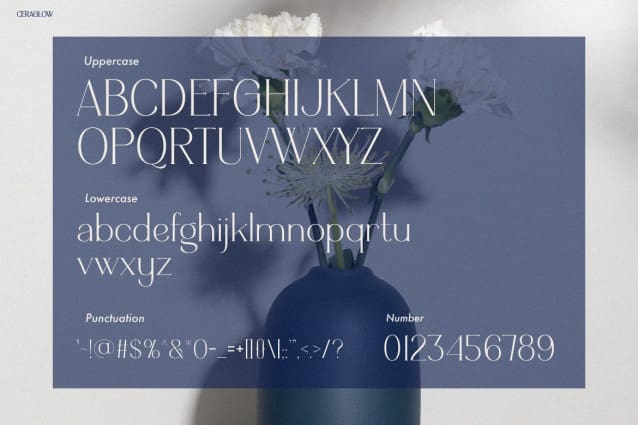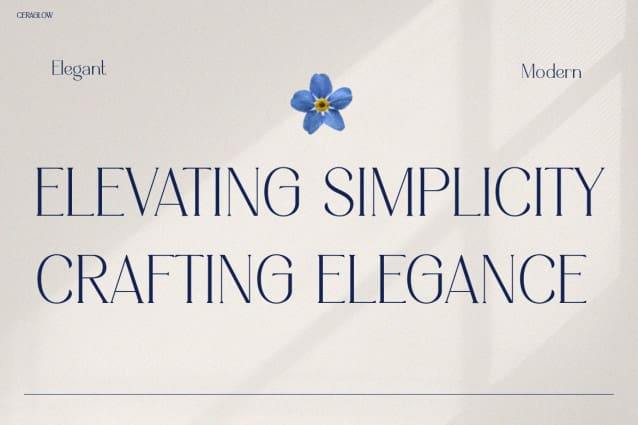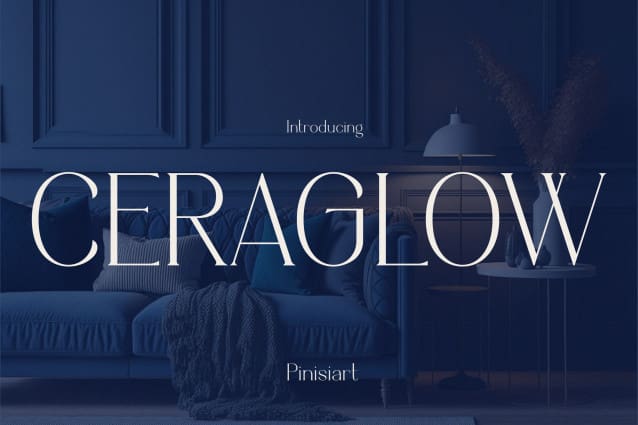
Ceraglow Font perfectly captures the harmony between elegance and modern minimalism. Each letter flows gracefully, and every curve reflects thoughtful design. Moreover, its sleek serifs and refined proportions make your words look instantly luxurious. Rather than being just another typeface, CERAGLOW turns ordinary text into a refined visual experience.
Inspired by contemporary interiors and minimalist fashion, this font delivers a calm yet confident charm. Its balance between soft lines and strong presence creates a sense of timeless sophistication. Whether you design for social media, magazines, or branding materials, CERAGLOW consistently enhances your visuals with polished precision. Furthermore, it adapts beautifully to different design styles — from chic simplicity to high-end luxury.
Perfect For Visionary Creators & Elegant Brands
CERAGLOW works flawlessly for designers, influencers, and creative entrepreneurs who want to express sophistication through typography. It suits Instagram posts, luxury packaging, editorial layouts, and stylish brand logos alike. In addition, its readability ensures that your design remains clear and compelling across digital and print platforms.
You can easily pair CERAGLOW with soft-toned imagery or minimalist layouts to build a clean and consistent brand identity. Likewise, combining it with neutral palettes or gold accents adds a touch of exclusivity. Each stroke of this font communicates confidence, helping your designs connect emotionally with your audience. As a result, your brand will not only look elegant — it will feel unforgettable.
Make Your Brand Shine With Instagram Font CERAGLOW
Bring life and confidence to your words with Instagram Font CERAGLOW. Its refined form and smooth readability empower you to create designs that look both modern and timeless. Moreover, this font helps your ideas flow seamlessly while maintaining a professional aesthetic.
Choosing CERAGLOW means embracing clarity, balance, and beauty in every letter. So, if you’re ready to elevate your visuals and captivate your audience, let CERAGLOW illuminate your brand. After all, true elegance begins with thoughtful simplicity — and this font embodies exactly that.